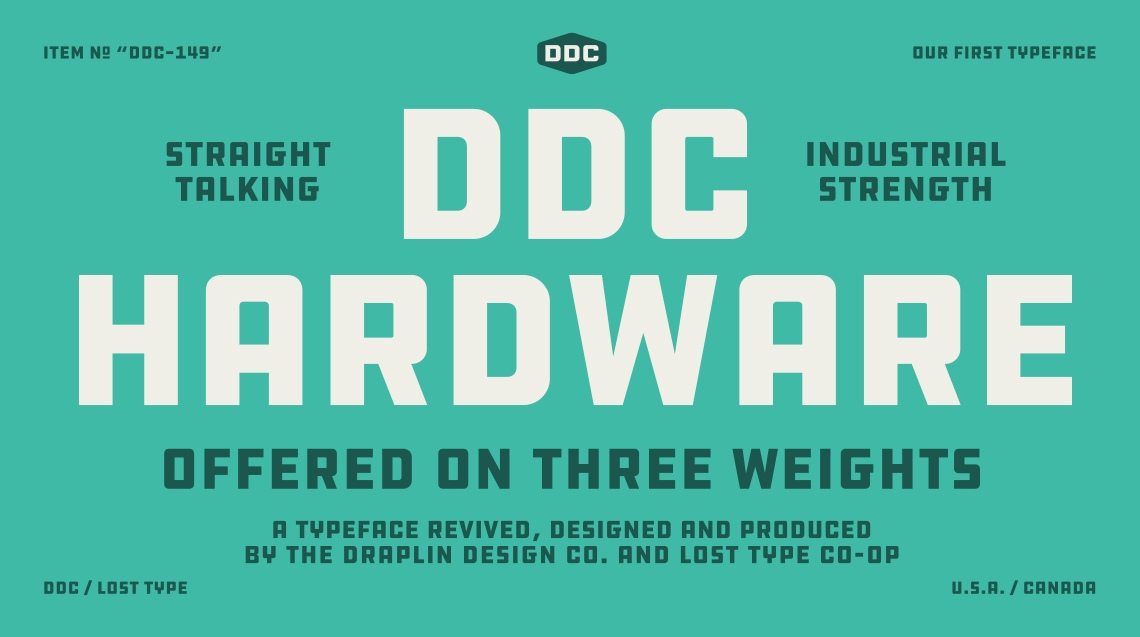
DDC Hardware Font
This industrial display typeface is perfect for hardware store branding, construction company logos, tool manufacturer packaging, mechanical equipment signage, automotive parts catalogs, industrial supply communications, workshop materials, and technical documentation design.
What makes this font exciting is its robust mechanical character that perfectly embodies the strength and reliability of quality hardware and industrial equipment through bold, sturdy letterforms and engineered precision. The utilitarian design reflects the honest functionality of professional tools and hardware, while the clear, readable construction ensures product information and technical specifications are communicated effectively in demanding industrial environments.
The DDC Hardware Font family includes regular, bold, and condensed weights, along with technical symbols, measurement indicators, and industrial ornaments that enhance the font's professional appeal for comprehensive hardware and manufacturing applications.
The commanding personality of DDC Hardware Font emerges through its no-nonsense approach and structural integrity that mirrors the precision engineering found in quality hardware and mechanical components. Each letterform displays the methodical craftsmanship and attention to functional detail that defines professional-grade tools and equipment, creating visual confidence and technical credibility. This engineering-inspired approach makes it particularly effective for power tool brands, fastener manufacturers, industrial supply catalogs, and professional contractor services requiring typography that communicates strength, precision, and unwavering reliability.
Professional designers will appreciate this font's ability to establish immediate credibility within industrial and construction contexts where trust and dependability are paramount. From equipment operation manuals to hardware store signage, from construction site banners to industrial trade show displays, DDC Hardware Font maintains its authoritative presence while adapting to diverse technical requirements. The font's comprehensive character set includes engineering symbols, measurement units, and technical iconography that enhance professional communication, ensuring complete design flexibility for businesses dedicated to providing quality hardware, reliable tools, and the uncompromising standards that define modern industrial excellence across all professional construction and manufacturing communication platforms.